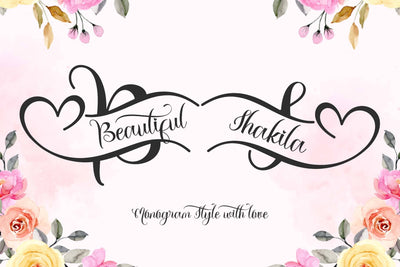
Beautiful Shakila Monogram
"Beautiful Shakila Monogram" is a beautiful and elegant monogram font. It features monograms, uppercase and lowercase letters, numerals, punctuations, and multilingual support. It's perfect for Christmas, business branding, invitations, weddings, Halloween, fall, autumn, florists, engagements, photography, logos, stickers, posters, prints, and more.